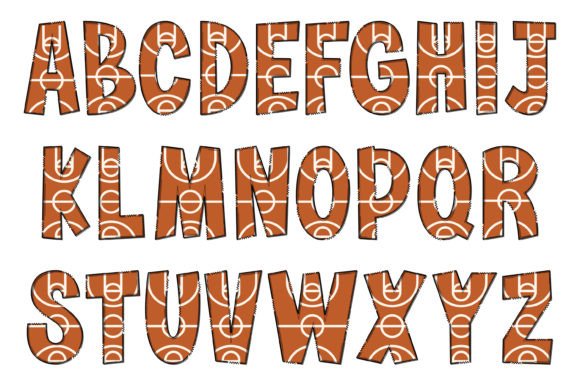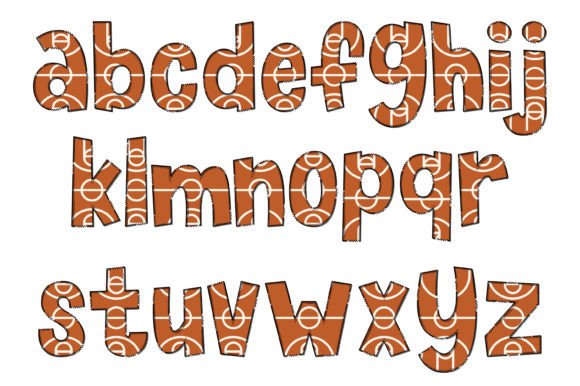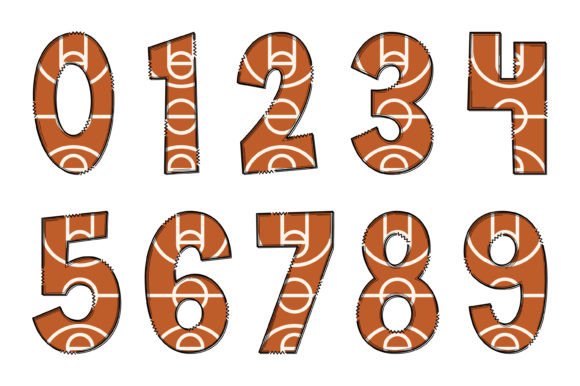
The Perfect Shot: Unlocking the Potential of Basketball Court Font
As a designer, have you ever found yourself stuck in a creative rut, searching for the perfect font to bring your project to life? Maybe you’ve spent hours scouring through font libraries, only to end up with a font that’s just…safe. You know, the kind that says “I’m a designer, but I’m not really taking any risks.”
That’s where the Basketball Court Font comes in – a font designed to add a playful and artistic touch to your designs. Its purpose is to evoke the fun and excitement of a basketball game, making it perfect for children’s books, posters, invitations, and more. For designers, this font is a valuable asset, offering a unique way to convey creativity and whimsy in their work. By incorporating the Basketball Court Font into your designs, you can add an extra layer of engagement and personality that’s sure to leave a lasting impression.
Basketball Court Font Key Features
- Font Family: The Basketball Court Font is a custom-designed font, with a unique blend of bold lines, geometric shapes, and dynamic curves that evoke the energy of a basketball court.
- Unique Characteristics: The font features a distinctive “court-inspired” design, with elements such as basketball court lines, hoops, and other sports-related motifs, making it a unique and eye-catching choice for designers and brands.
Basketball Court Font Review
I recently had the chance to work with the “Basketball Court Font” and I must say, it’s a unique and intriguing typeface. Here are my thoughts on what works well and what doesn’t:
- Customization: The font is highly customizable, allowing you to adjust the court lines, colors, and even add custom logos.
- Realism: The font is incredibly realistic, with detailed court lines and accurate basketball court dimensions.
- Flexibility: The font can be used for a variety of purposes, from designing basketball court graphics to creating sports-themed merchandise.
- Complexity: The font’s customization options can be overwhelming, making it difficult for beginners to use.
- Limited font styles: The font only comes in a few pre-designed styles, limiting its versatility.
Overall, I’m impressed with the “Basketball Court Font” but also see some areas for improvement. With a bit more refinement and streamlining, this font could be a game-changer for designers and sports enthusiasts alike.
Use the Basketball Court Font to create engaging graphics, such as scoreboard designs, basketball-themed posters, and social media graphics.
Use the Basketball Court Font to create custom basketball court designs, scoreboards, and other graphics.
Use the Basketball Court Font to create engaging presentations, such as basketball-themed slideshows, and documents, such as sports reports.
To get the most out of the Basketball Court Font, experiment with different font sizes, colors, and styles to create visually appealing designs.
Use the font in combination with other design elements, such as basketball-themed graphics and images, to create engaging and immersive designs.
The Basketball Court Font is ideal for:
- Basketball-themed designs and graphics
- Scoreboard designs and custom basketball court layouts
- Sports reports and articles